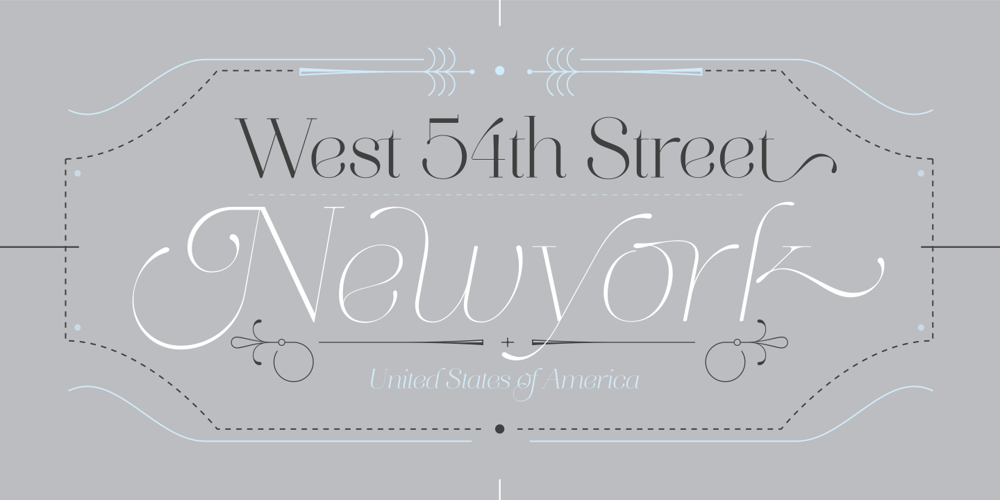
Aire
Aire Font Family was designed by Maximiliano R. Sproviero and published by Sproviero Type. Aire contains 13 styles and family package options. Aire is what Sproviero would call a < big display family >. We recommend seeing its user’s guide. After his success with Reina, Sproviero comes out with this big family of 7 members: Each of them loaded with lots of sophisticated ligatures, alternates and the entire cyrillic alphabet. The overall impression that the font gives is lightness and delicateness; that’s the reason the designer chose to call it Aire, or Air, in English. “Aire was somehow having a rest from my fat face Reina […] It started as a really thin style of Reina, but it rapidly migrated from it and grew up alone. And how it grew…” The inspiration came from his own past creations: “The heavy strokes of Reina were shouting for a more delicate thing. Something more feminine. More fragile. Something which had a lot of elegance and fresh air inside”. Aire responds to this: Sproviero found that many of the typefaces of nowadays which are used for headlines (best known as display fonts) have almost always just one, maybe two weight styles. This was his opportunity to try something new. Aire makes it easier for the user to generate different levels/layers of communication thanks to its variety of styles. With this font you can solve entire decorative pieces of design with just one font, and that was the aim of it. Aire was designed to be playful yet formal: While none of its alternates are activated it can be useful for short to medium length texts; and when the user chooses to make use of its open-type decorative glyphs, it can be useful for headlines with dazzling results. On March of 2012, Aire was chosen to be part of the most important exhibition of typography in Latinoamerica: Tipos Latinos 2012. TECHNICAL Aire is a family with many members. In total, the user can choose between almost 6,000 (!) glyphs (1,000 per style). Each member has variants inside, which are open-type programmed: The user decides which glyph to alternate, equalizing the amount of decoration wanted. Every decorative glyph has its weight adjusted to the style it belongs to. Exclusively for decoration, Aire Fleurons Pro is an open-type programmed set of ornaments. And last but not least, remember Aire is delicate. What’s my point? It is not recommended to activate all the alternates at the same time. It is typo-scientifically proved: A maximum of 3 or 4 alternates per word would be more than enough.